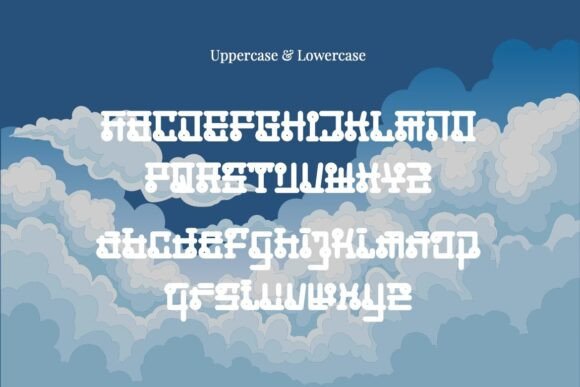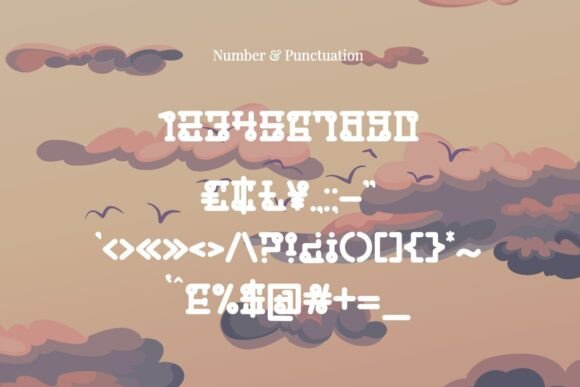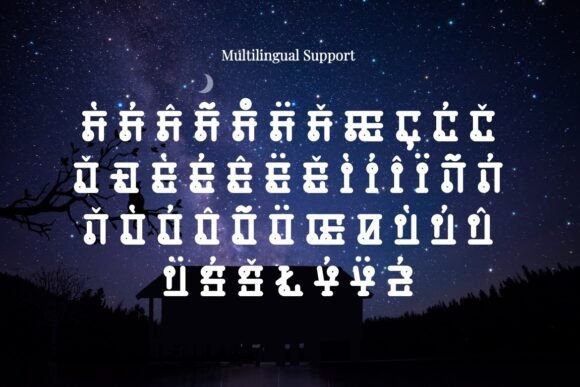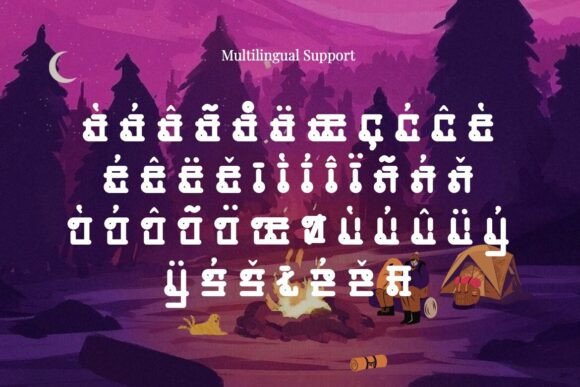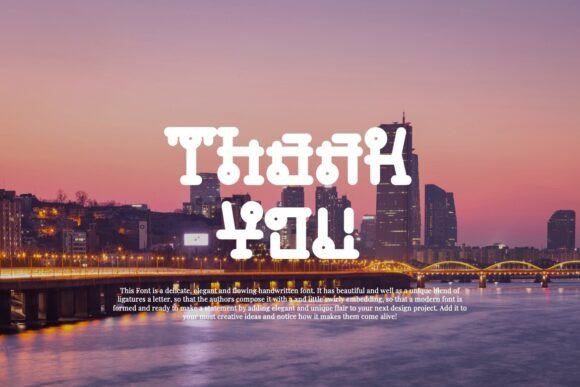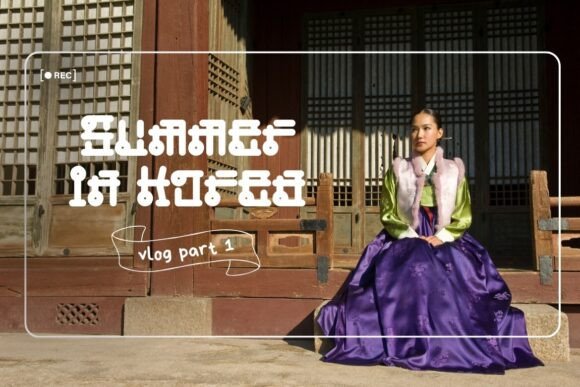
Hakorel Font: Elevate Your Designs with a Touch of Korean Elegance
In the world of typography, fonts play a crucial role in conveying the tone and aesthetic of a design. For creatives looking to add a unique and stylish touch to their projects, Hakorel Font is an excellent choice. This Korean-inspired font seamlessly blends modern design with traditional elements, making it perfect for a wide range of applications.
The Inspiration Behind Hakorel
Hakorel Font draws inspiration from Korean typography, incorporating traditional elements with a modern twist. The result is a font that exudes elegance, sophistication, and cultural flair. The design team behind Hakorel aimed to create a font that not only pays homage to Korean heritage but also appeals to a global audience.
Key Features of Hakorel Font
Hakorel Font boasts several key features that make it an attractive choice for designers and crafters:
- Smooth, clean lines: Hakorel’s sleek and refined lines create a sense of sophistication and elegance, making it perfect for high-end designs.
- Unique, artistic flair: The font’s artistic elements add a touch of personality and whimsy, allowing designers to create distinctive and eye-catching designs.
- Modern design with traditional elements: Hakorel’s blend of modern and traditional design elements creates a unique and captivating aesthetic.
Uses for Hakorel Font
Hakorel Font’s versatility makes it suitable for a wide range of creative projects, including:
- Branding and logos: Hakorel’s sleek and trendy look makes it perfect for creating memorable and impactful brand identities.
- Digital and print media: The font’s clarity and legibility make it ideal for use in digital and print media, such as magazines, newspapers, and websites.
- Packaging and advertising: Hakorel’s elegant and sophisticated design makes it perfect for packaging and advertising materials.
- Art and craft projects: The font’s unique and artistic flair makes it a great choice for crafters and artists looking to add a touch of personality to their work.
Benefits of Using Hakorel Font
By incorporating Hakorel Font into your designs, you can:
- Add a touch of elegance and culture: Hakorel’s Korean-inspired design elements add a unique and sophisticated touch to any design.
- Stand out from the crowd: The font’s distinctive and artistic flair helps your designs stand out in a crowded marketplace.
- Enhance your brand’s identity: Hakorel’s sleek and modern design makes it perfect for creating a strong and memorable brand identity.
Tips for Using Hakorel Font
To get the most out of Hakorel Font, consider the following tips:
- Experiment with different sizes and styles: Hakorel Font comes in a range of sizes and styles, so don’t be afraid to experiment and find the perfect combination for your design.
- Pair with complementary fonts: Hakorel Font pairs well with a range of other fonts, so try combining it with complementary fonts to create a unique and visually appealing design.
- Use it to add a touch of personality: Hakorel’s artistic flair makes it perfect for adding a touch of personality and whimsy to your designs.
Hakorel Font is a stylish and versatile font that offers a unique blend of modern design and traditional Korean elements. Its sleek and trendy look, combined with its elegant and sophisticated aesthetic, make it perfect for a wide range of creative projects. Whether you’re a designer, crafter, or simply looking for a unique font to add to your collection, Hakorel Font is an excellent choice.